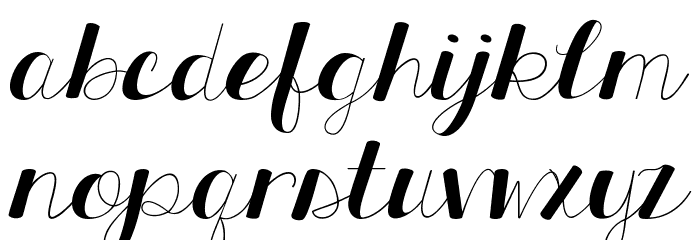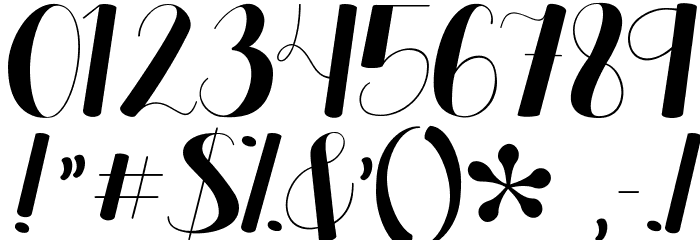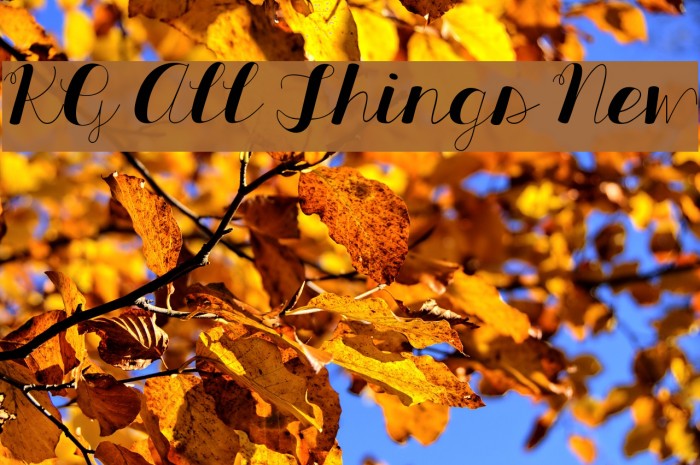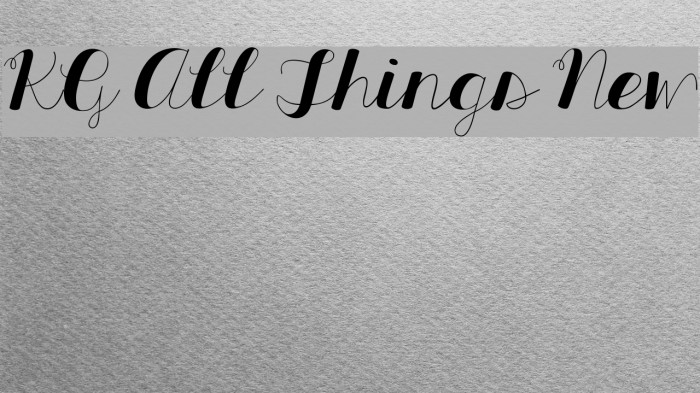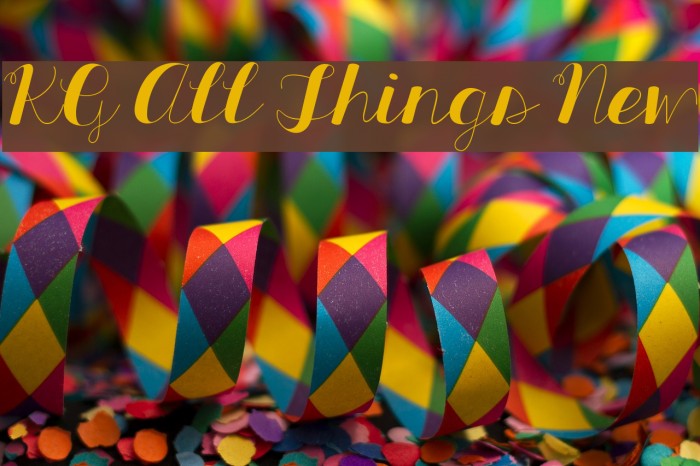
KG All Things New Font
This font features a unique blend of elegance and modernity, characterized by its flowing script style with a high contrast between thick and thin strokes. The uppercase letters are bold and striking, while the lowercase letters maintain a graceful and fluid appearance. The numerals are distinct and stylish, complementing the overall aesthetic. Special characters are thoughtfully designed, adding to the font's versatility. The combination of bold and delicate elements makes it suitable for a variety of creative projects.
A modern script font with high contrast and elegant, flowing characters.
- Proposed Projects: Ideal for wedding invitations, branding, logos, and decorative headlines.